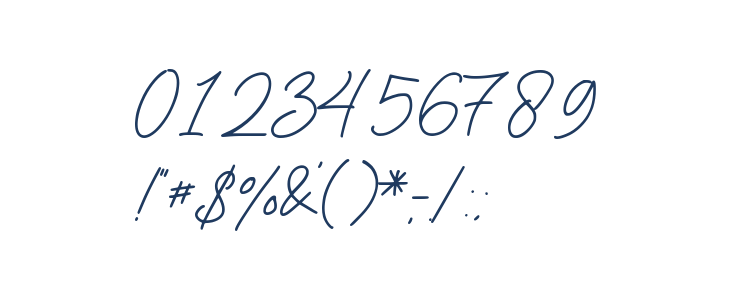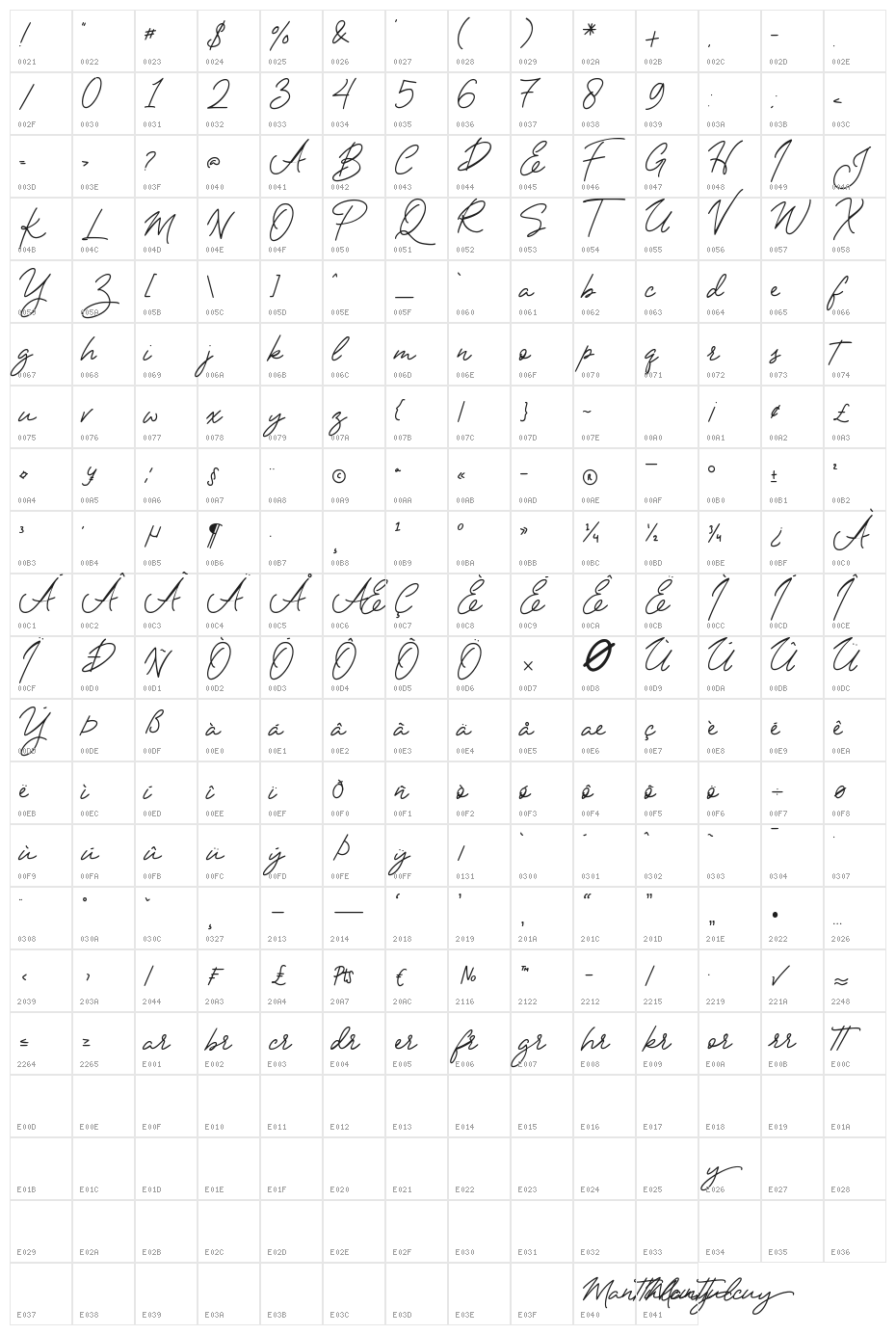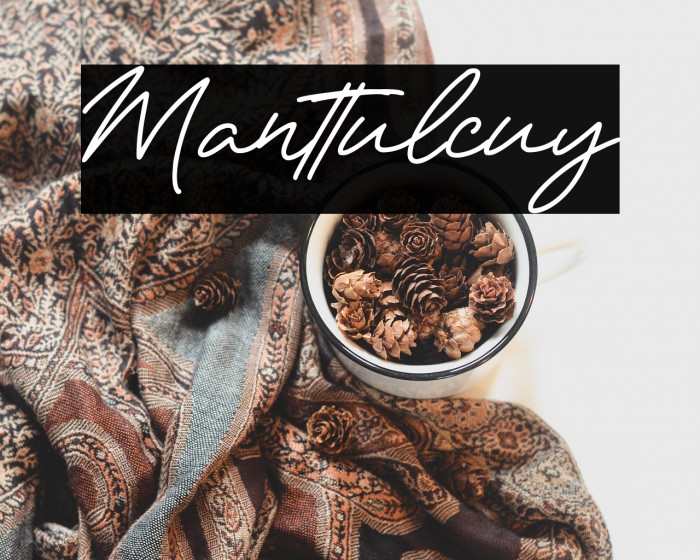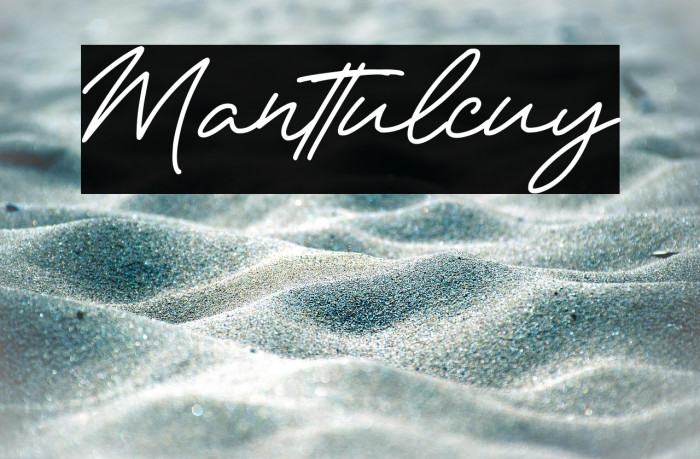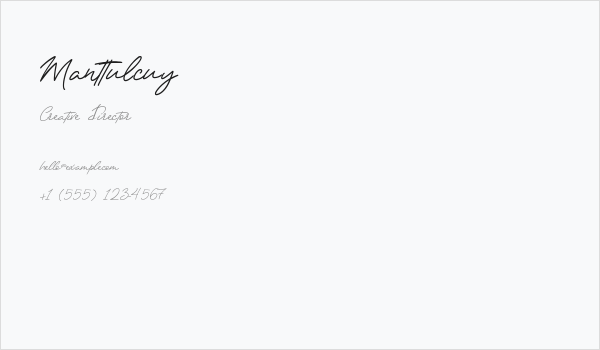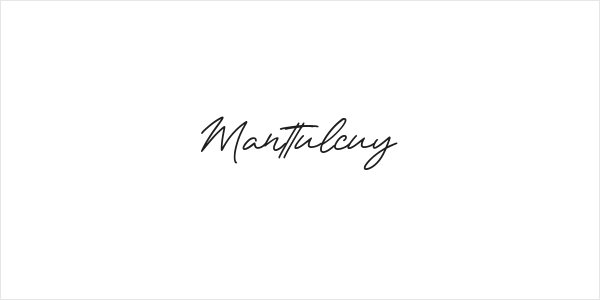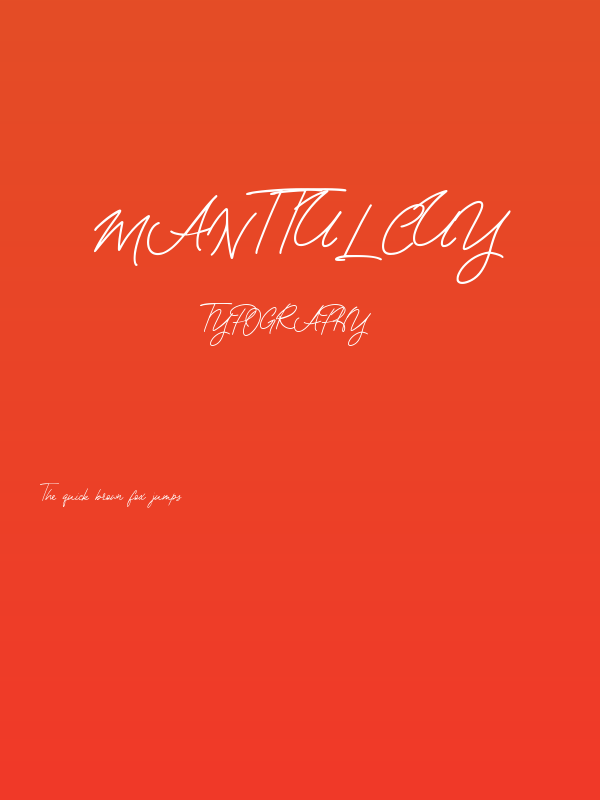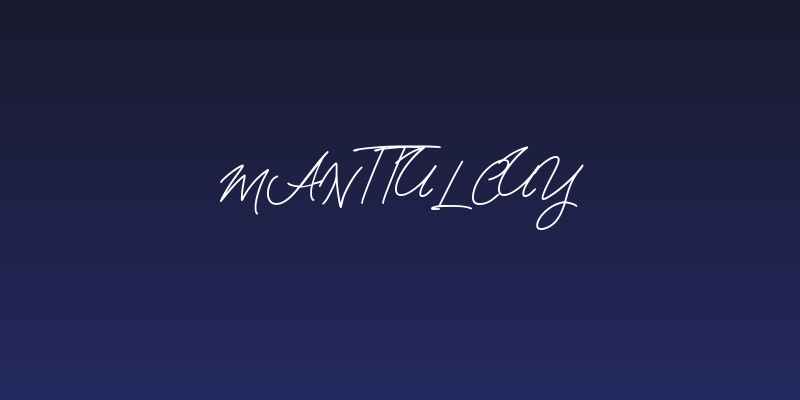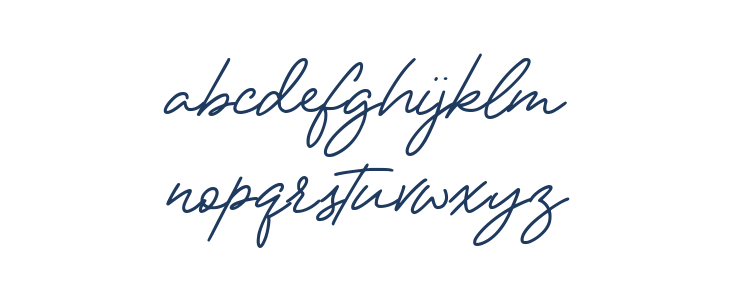
Manttulcuy Font
Manttulcuy Description
This font features a flowing, cursive style that mimics elegant handwriting. The letters are interconnected with smooth, sweeping strokes, giving it a fluid and dynamic appearance. The uppercase letters are slightly larger and more elaborate, while the lowercase letters maintain a consistent flow. The numerals and special characters are designed to match the overall script style, ensuring a cohesive look. The font's delicate curves and loops add a touch of sophistication, making it suitable for formal invitations, elegant branding, and artistic projects.
Overall StyleElegant, Handwritten
Use CaseLogos, Invitations, Artistic projects
Proposed ProjectsIdeal for wedding invitations, elegant branding, personal stationery, and artistic designs.